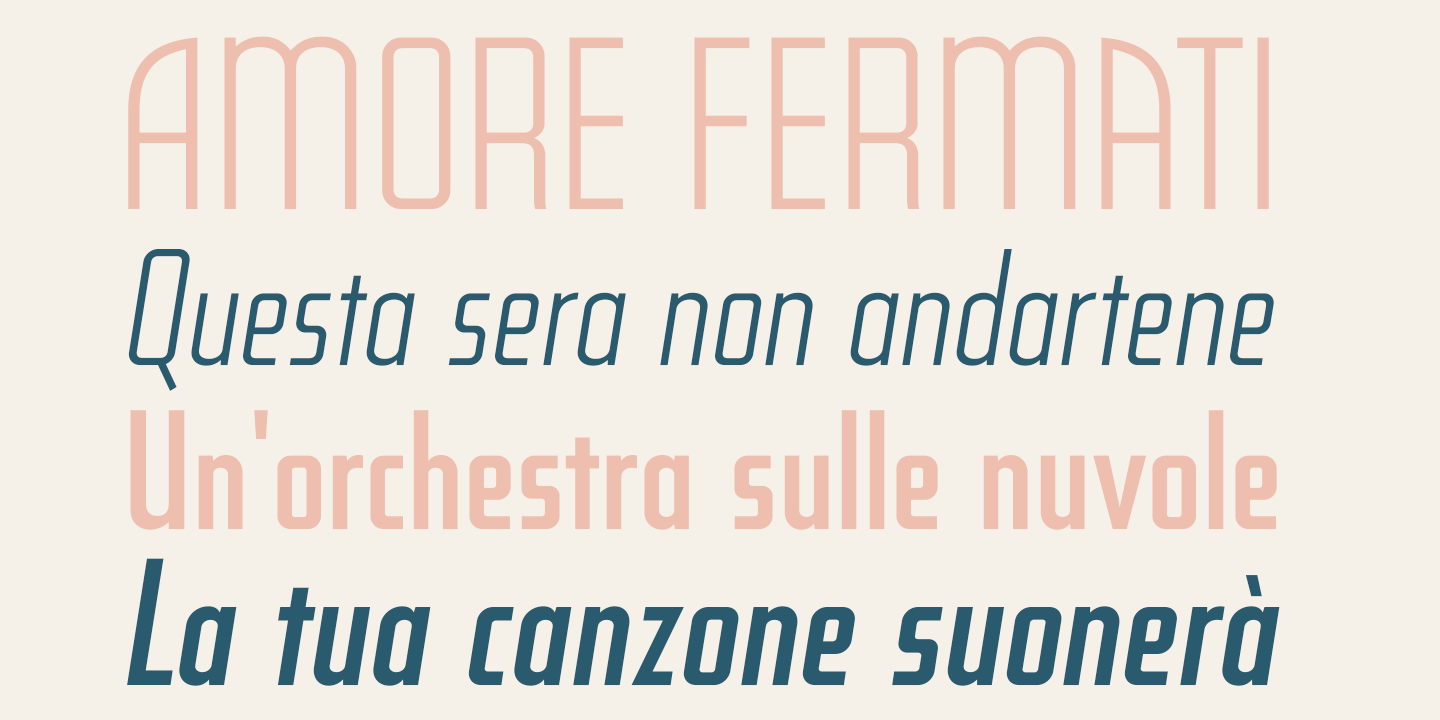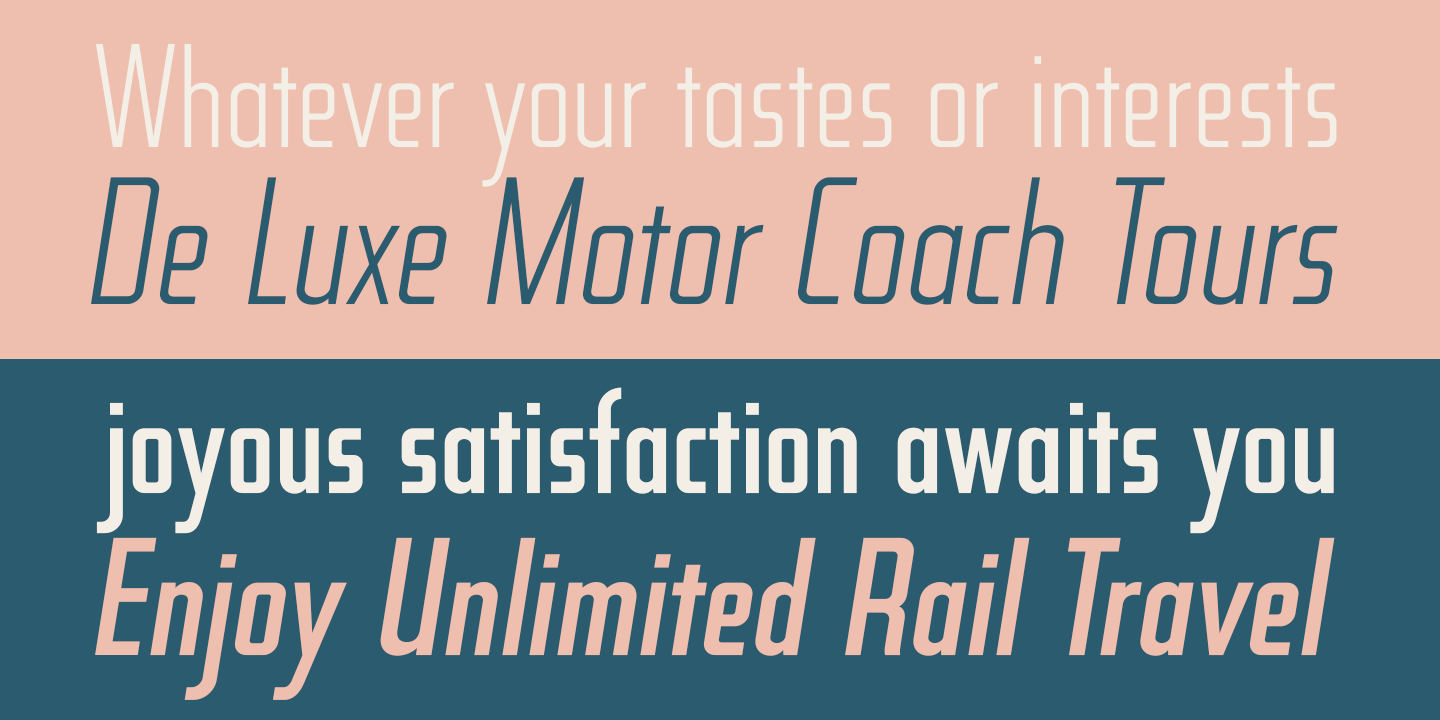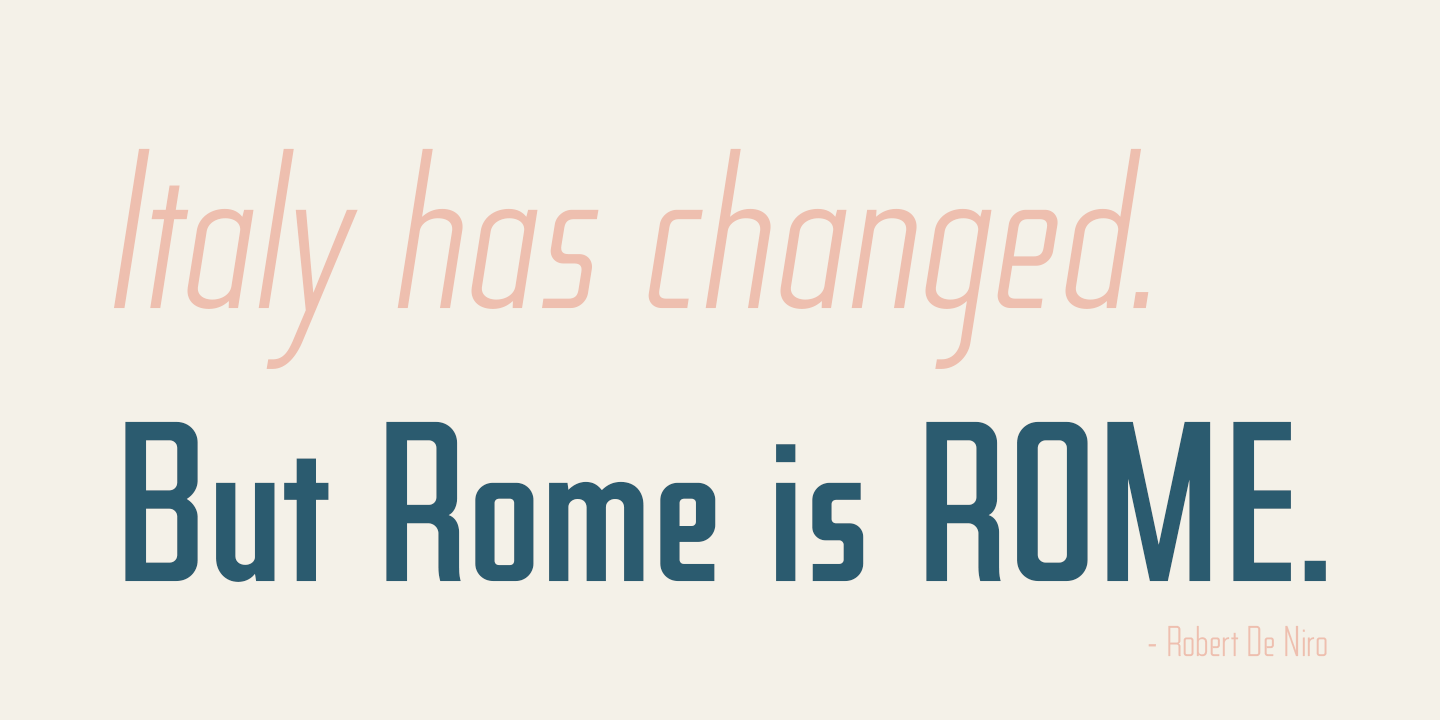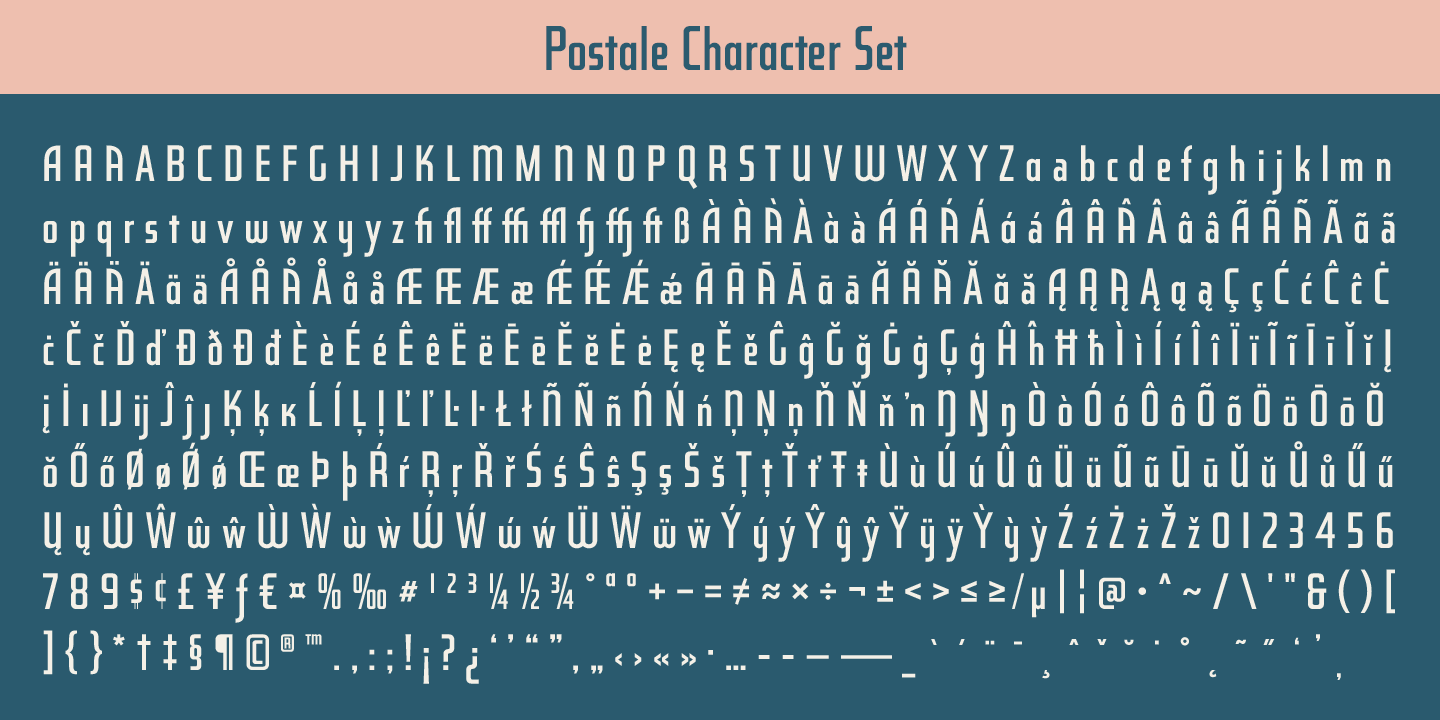
About Postale
I recently came across an old travel journal I?d misplaced, and in it was a really rough sketch of an Italian post office. The sign lettering caught my eye while flipping through the pages, and while not my forte, I thought I?d take my stab at recreating…